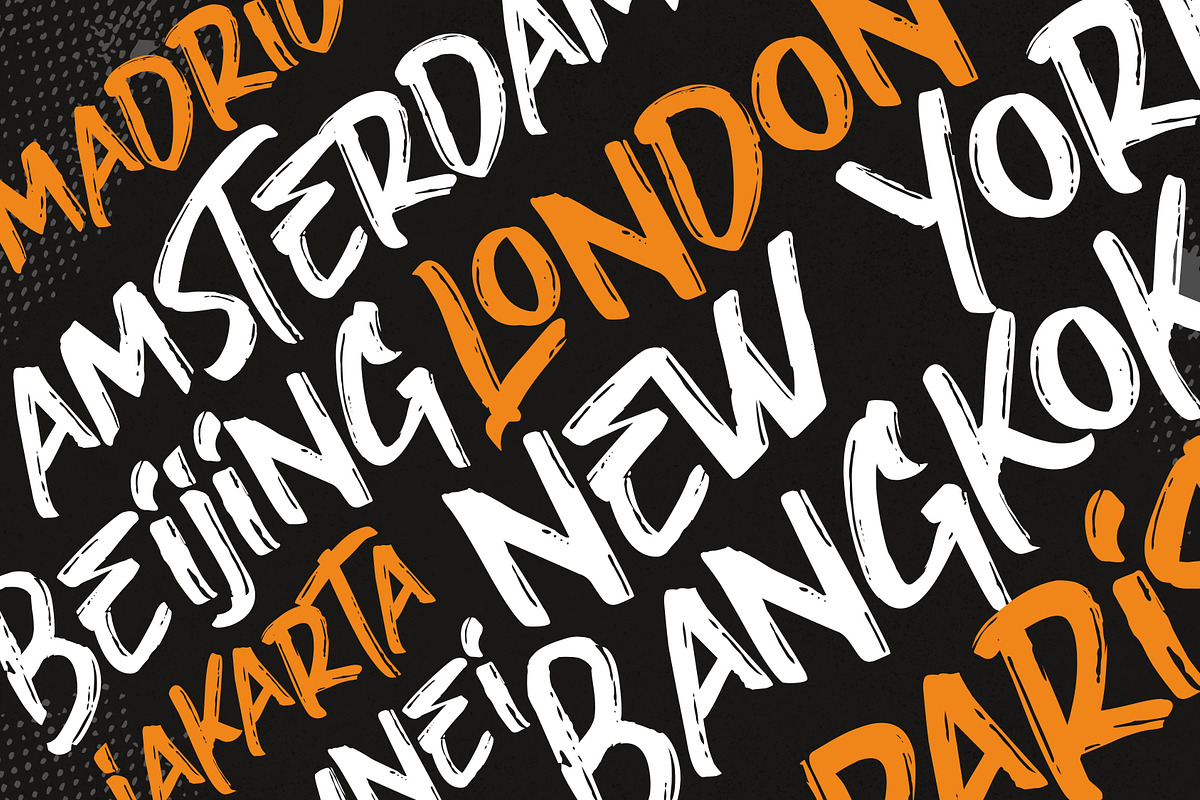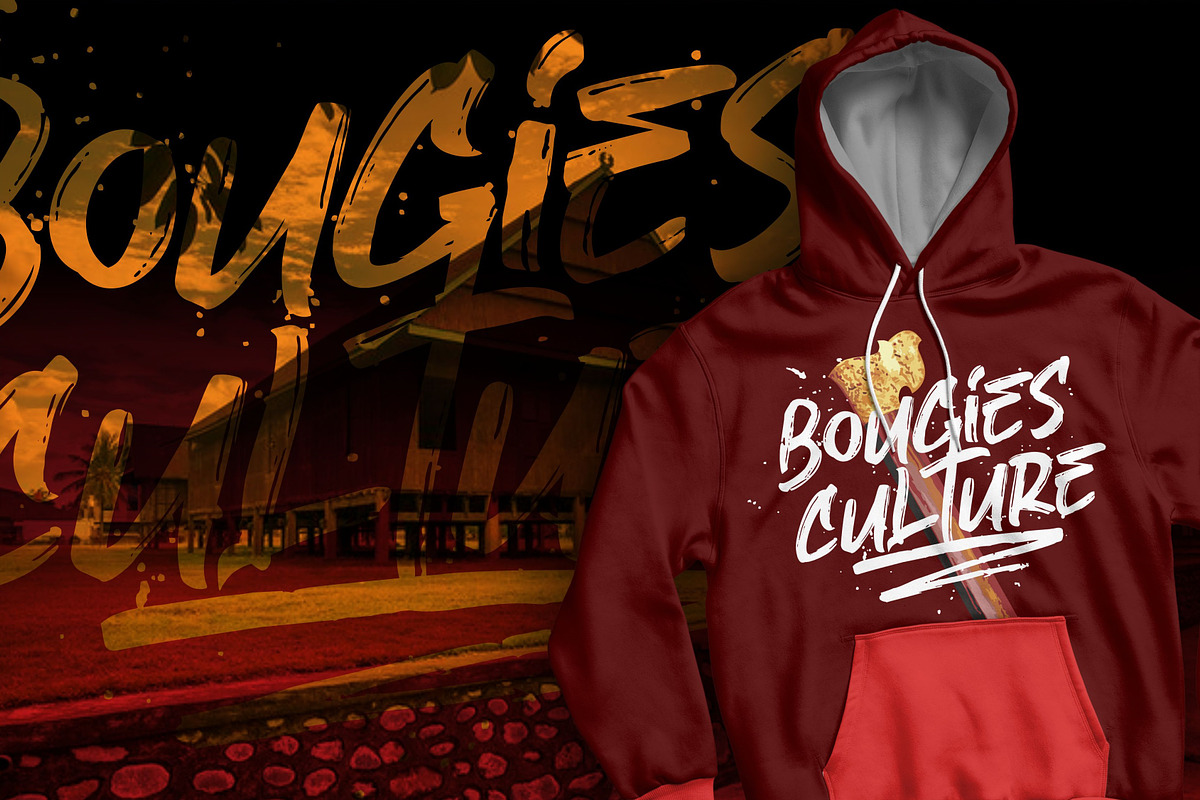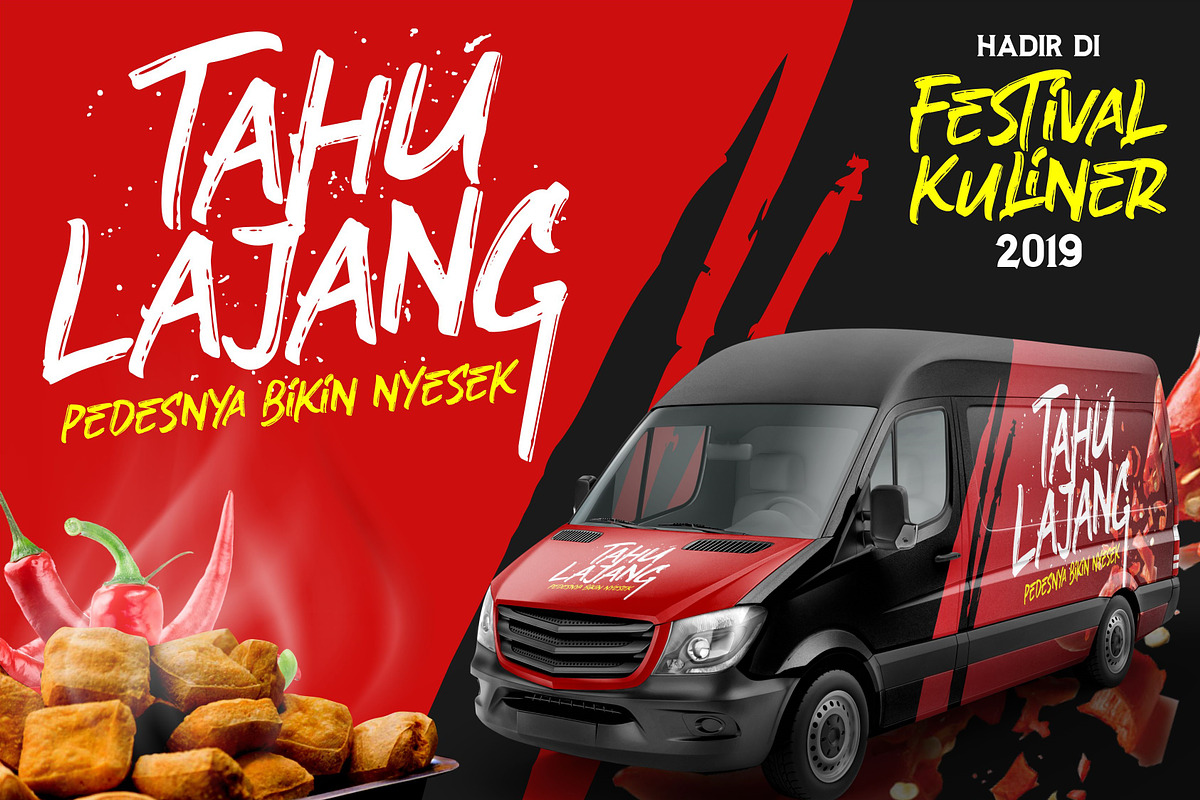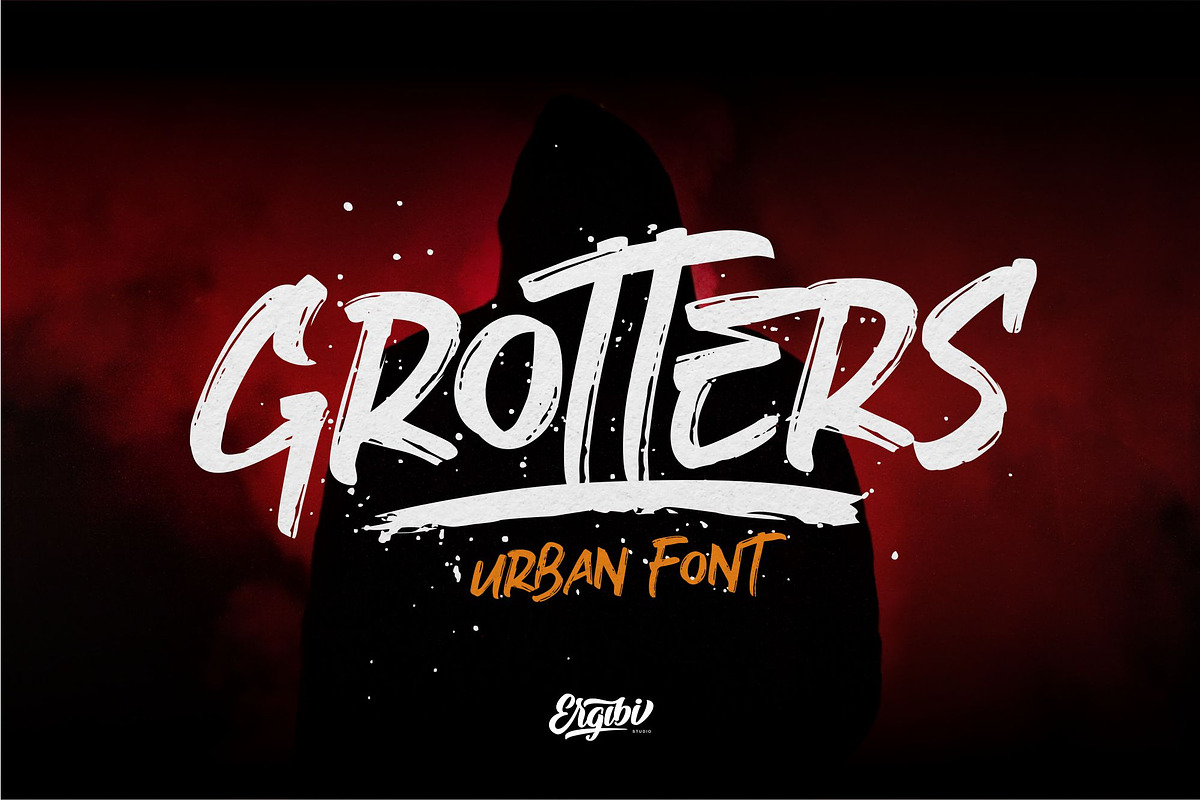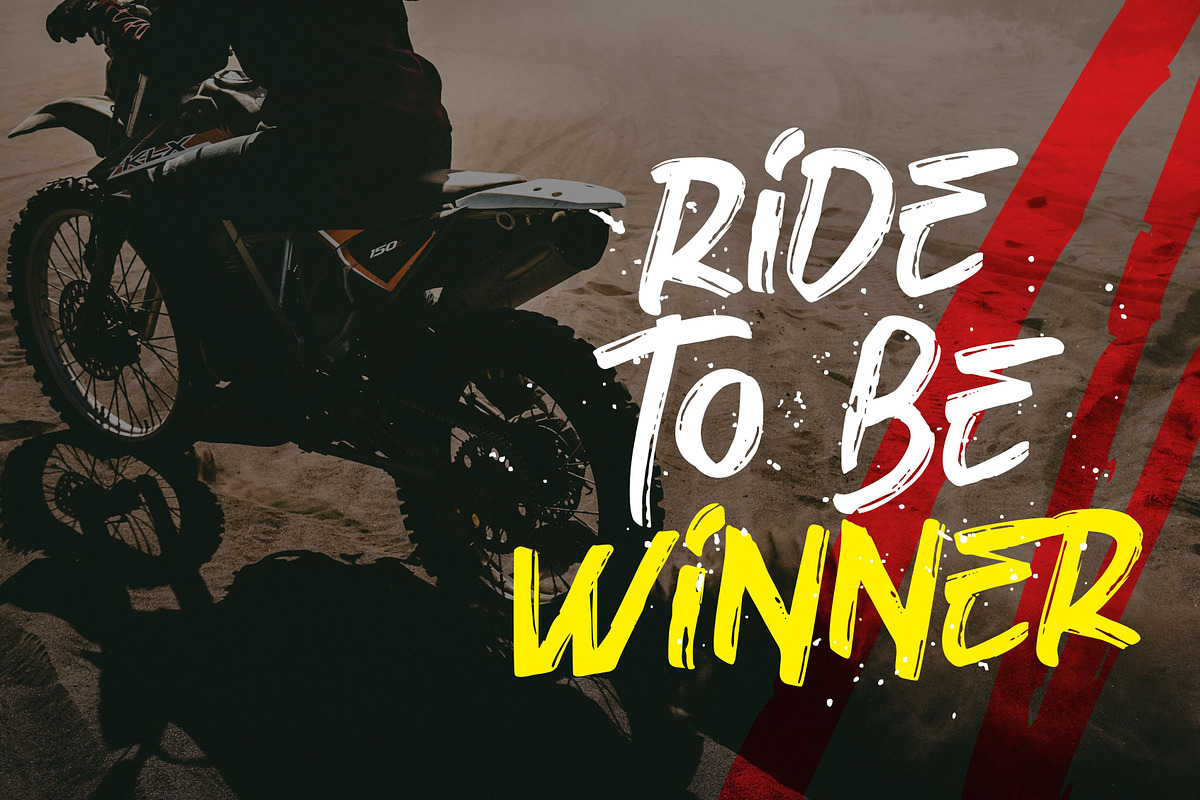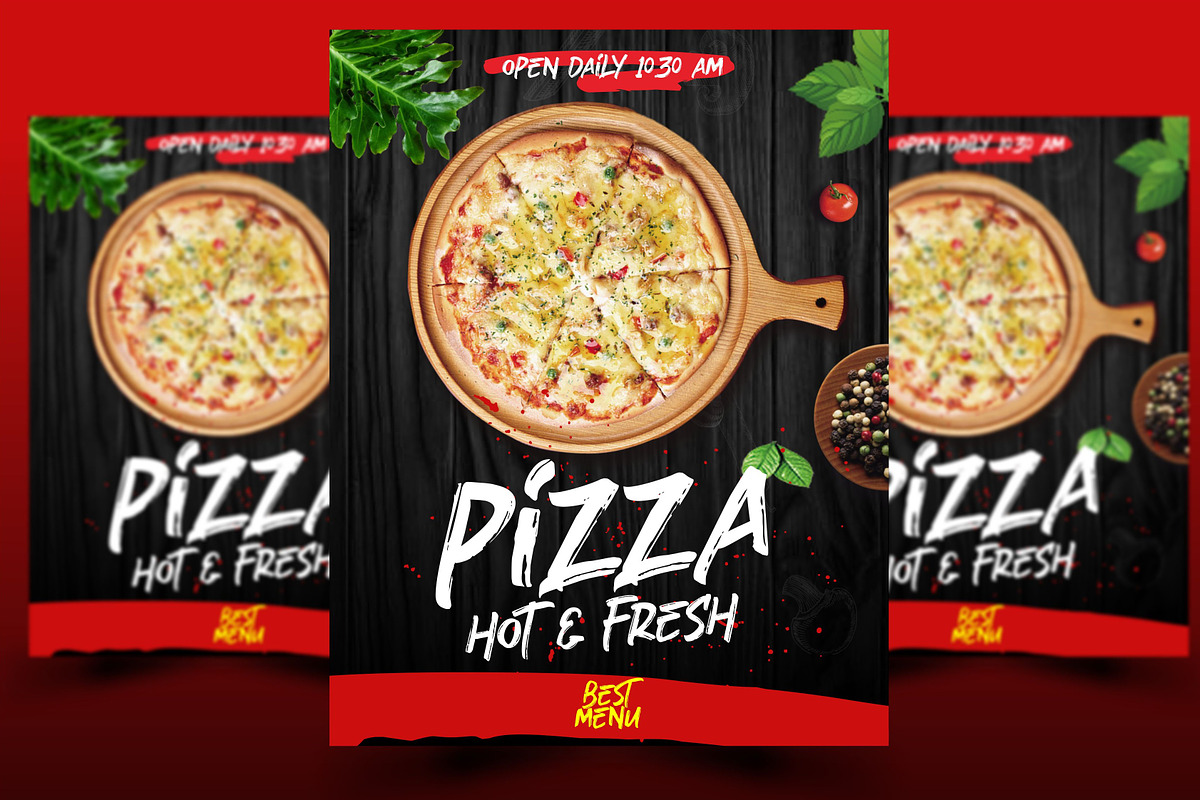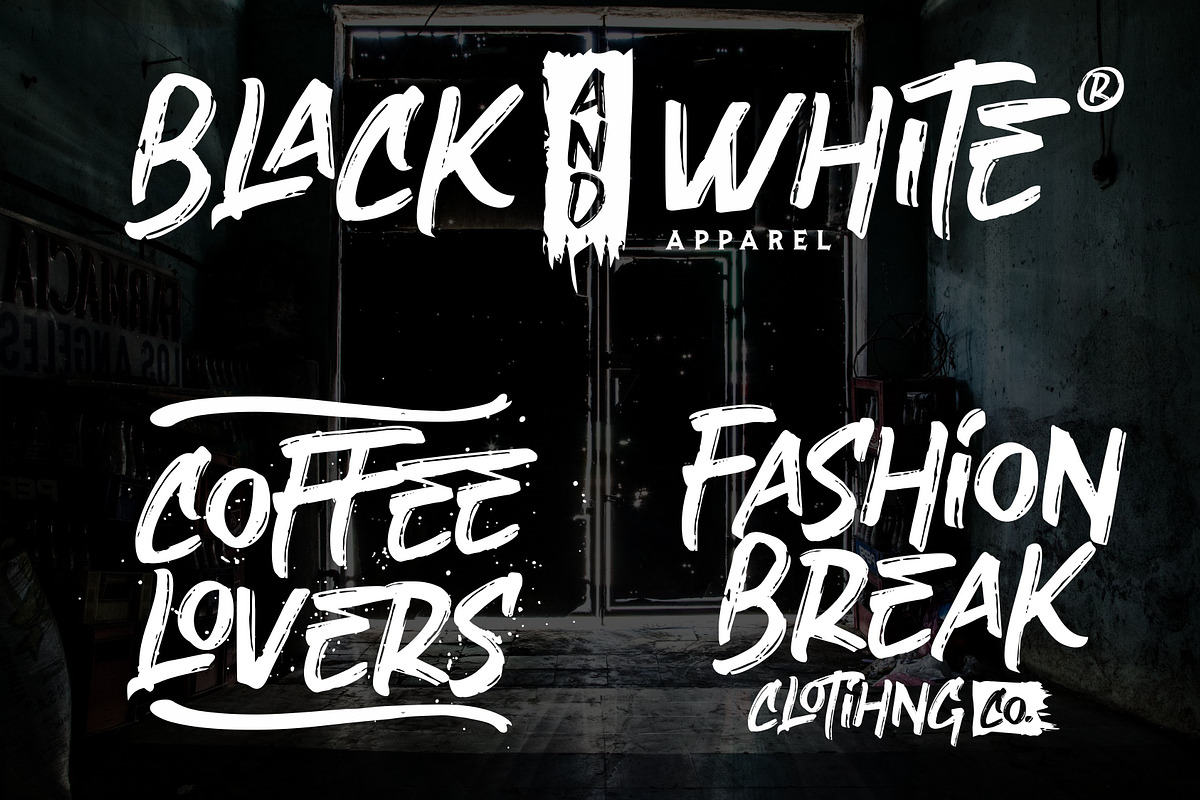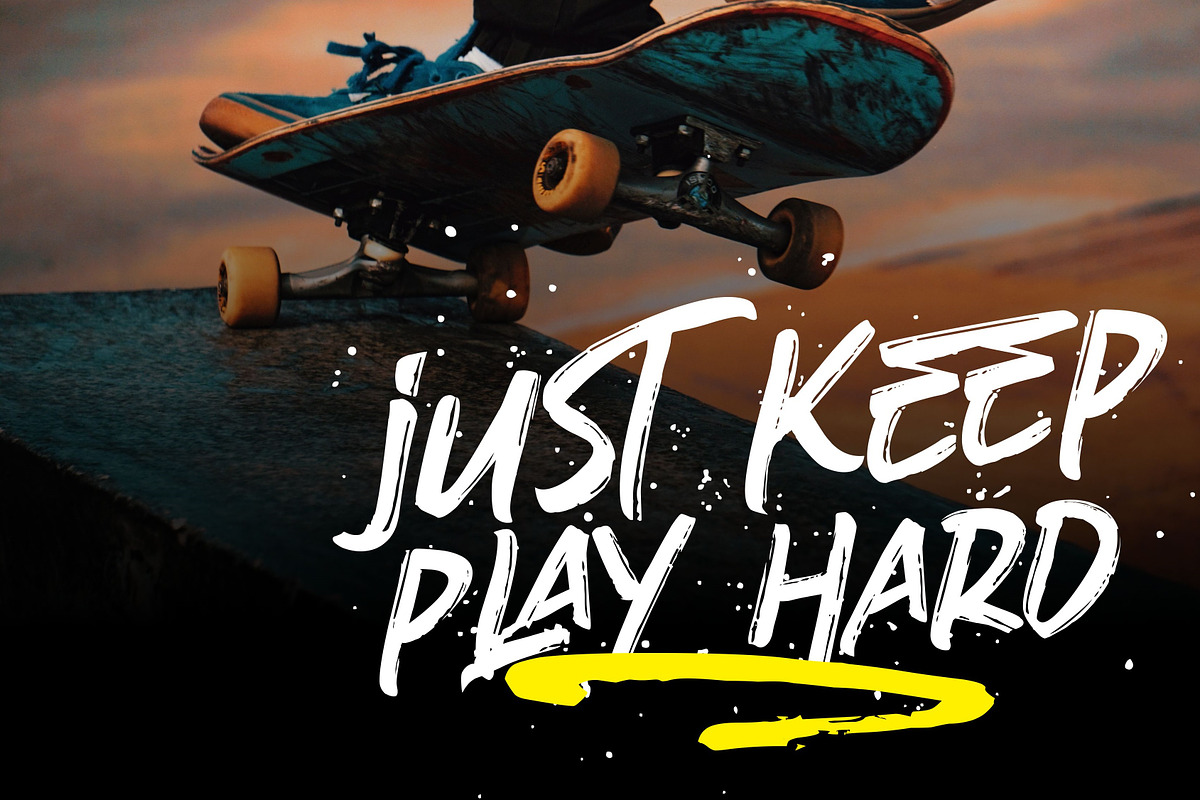
Grotters - Urban Font
Grotters Urban Font is a supercharged, with extra attention to quick strokes and sharp details, Grotters It contains uppercase, lowercase and ligature. Grotters is ideal for logos, apparel, t-shirts, hoodies, quotes, product packaging, or anything that needs a typographic turbo-boost and you’ll get a unique swash to accompany the font.
Grotters Swash - cool underline under your text or a splash of paint? This font set has you covered. Type any letter a-z using this font, and you'll get a unique swash to accompany the font and extra brush
Language Support - We've added in a great deal of extra characters to support many different languages.
- Grotters Regular - The standard version of the font. Perfect for titles and logos.